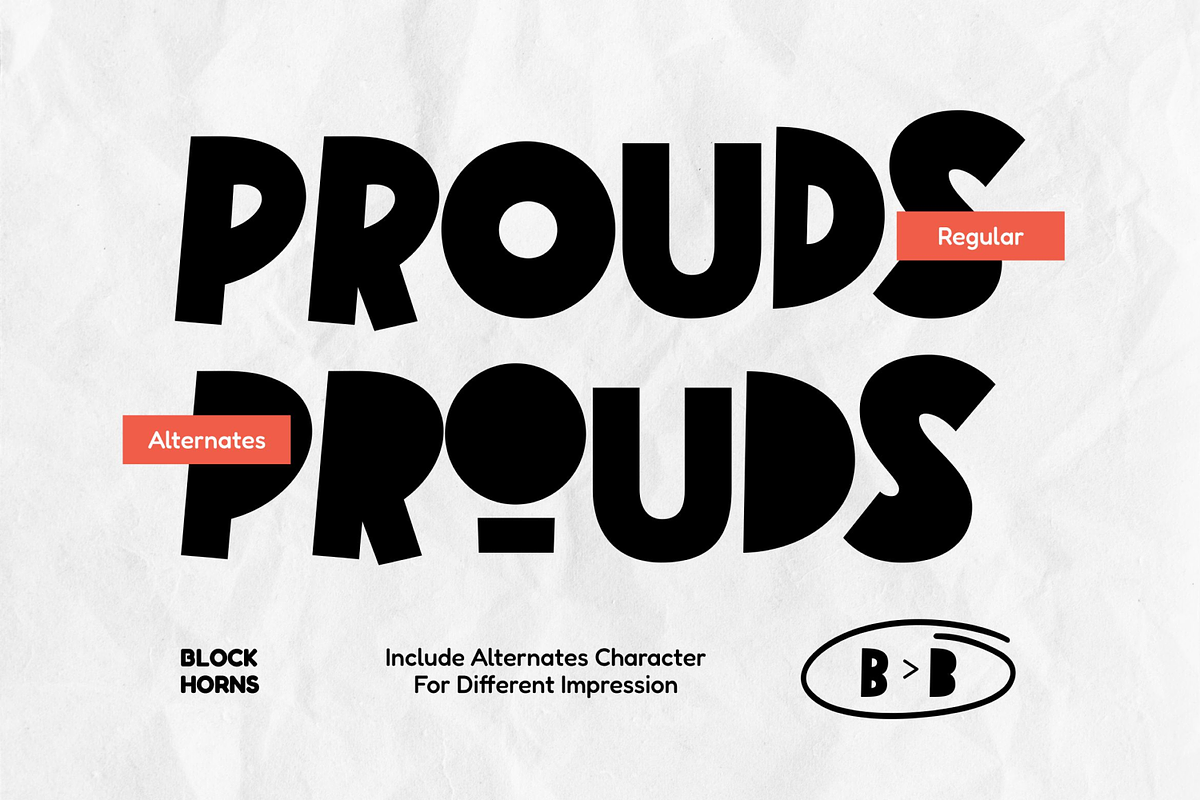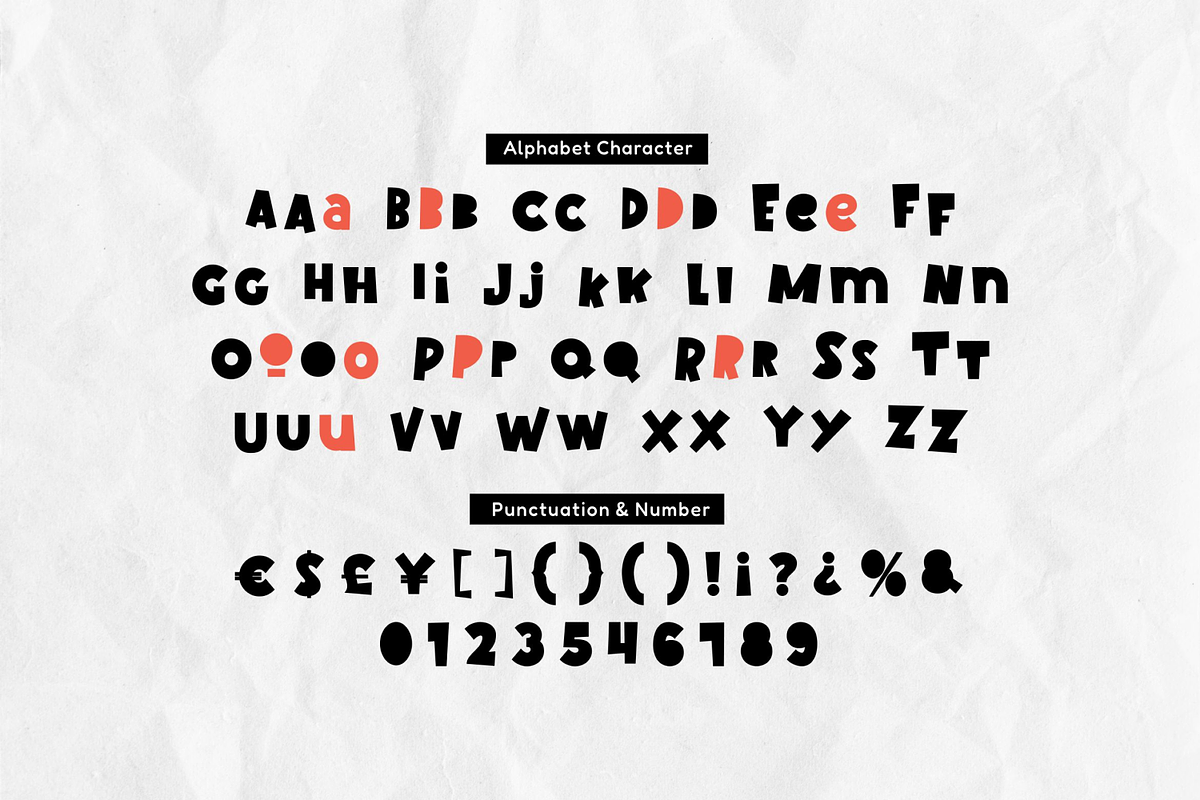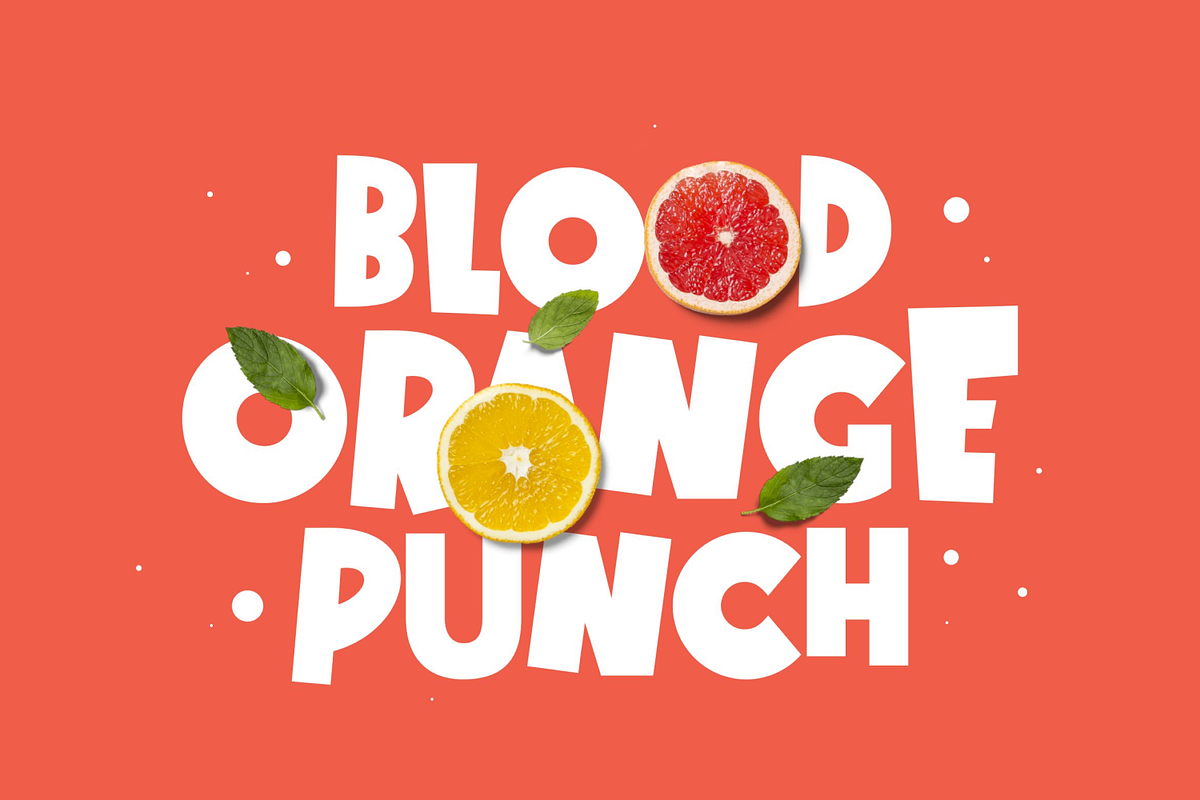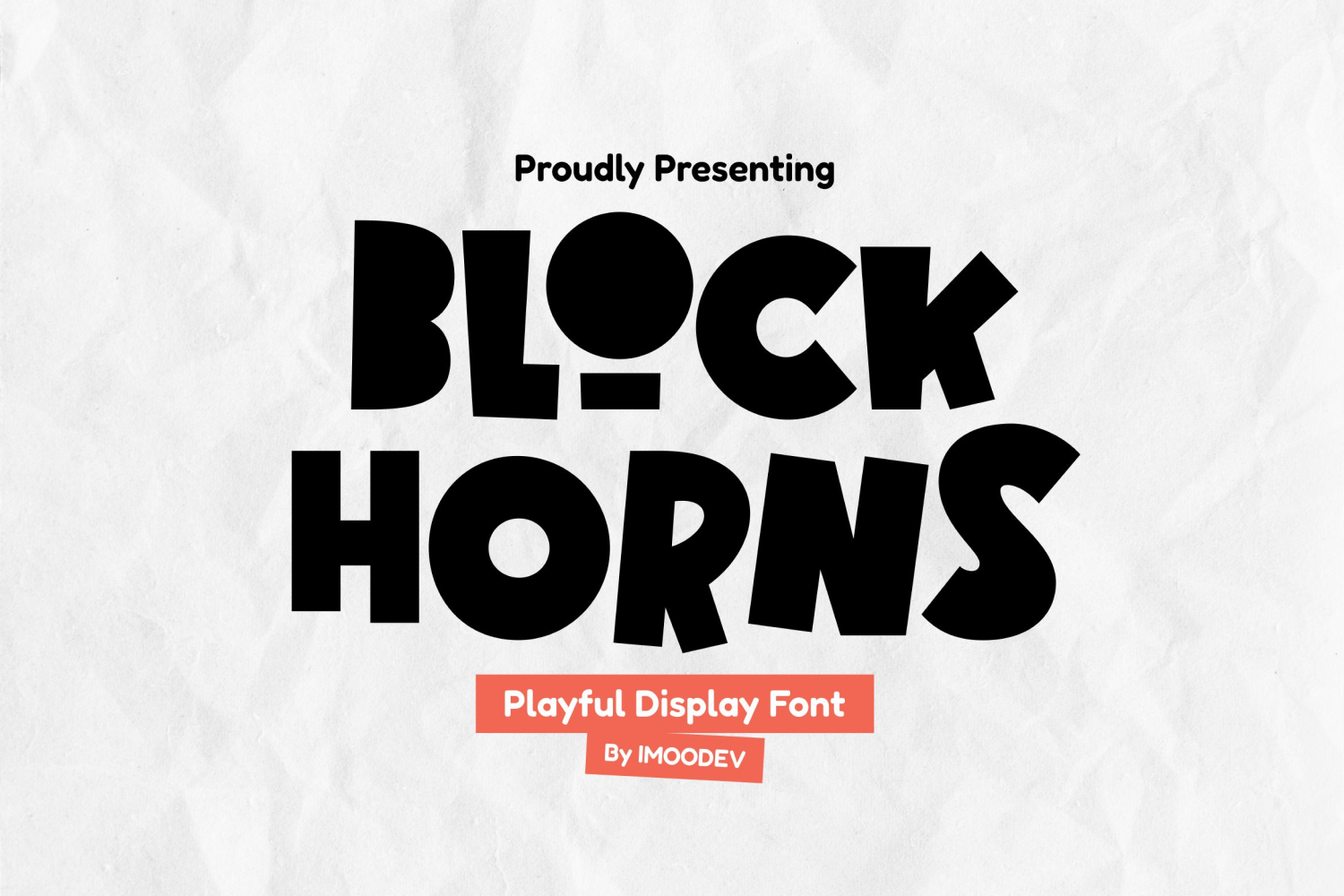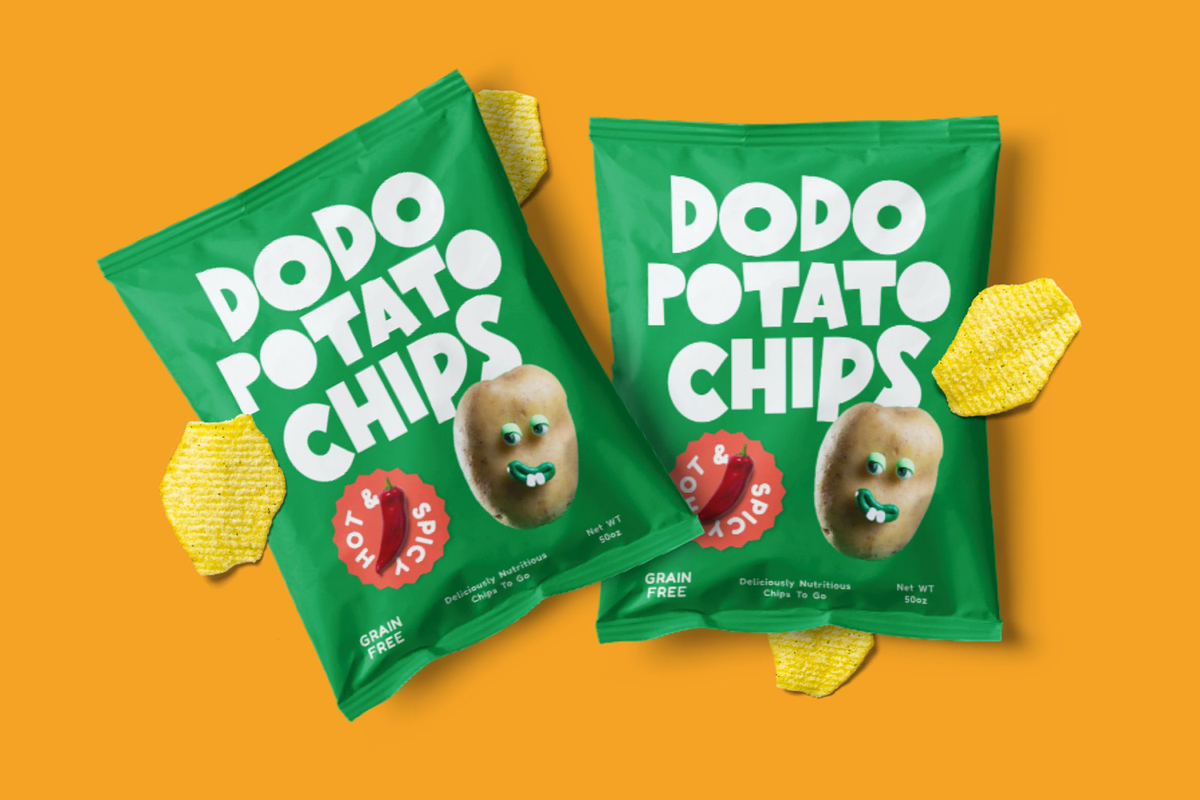
Block Horns - Chunky Display Font
Block Horns is a chunky display font featuring thick, geometric letterforms with a cheerful vibe. The shapes letter are dominated by blocky forms with rounded edges, while the letters showcase subtle asymmetry and varying stroke widths, adding character and a handcrafted feel.
This font is perfect for capturing attention in playful branding, merchandise, apparel, toy packaging, school projects, children’s products, party invitations, food or beverage branding, cartoon themed designs, posters, children’s books, and any headline that needs a strong yet unique presence.